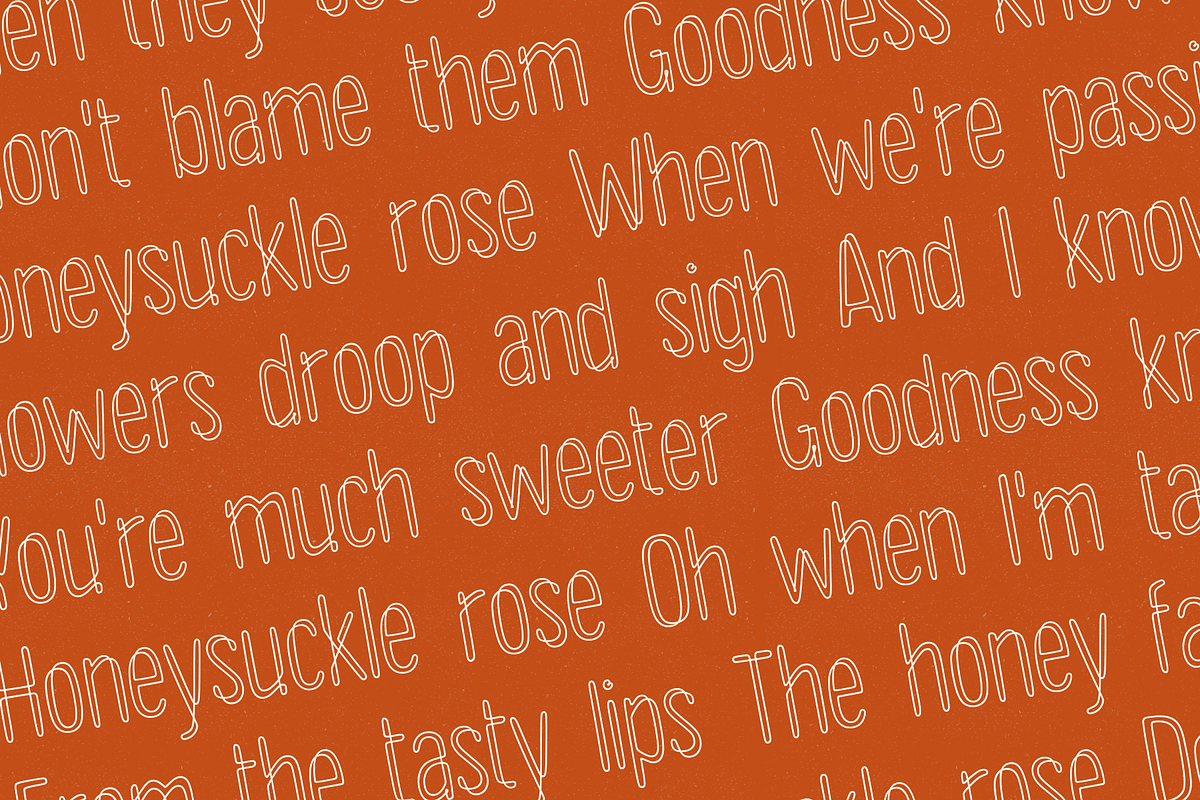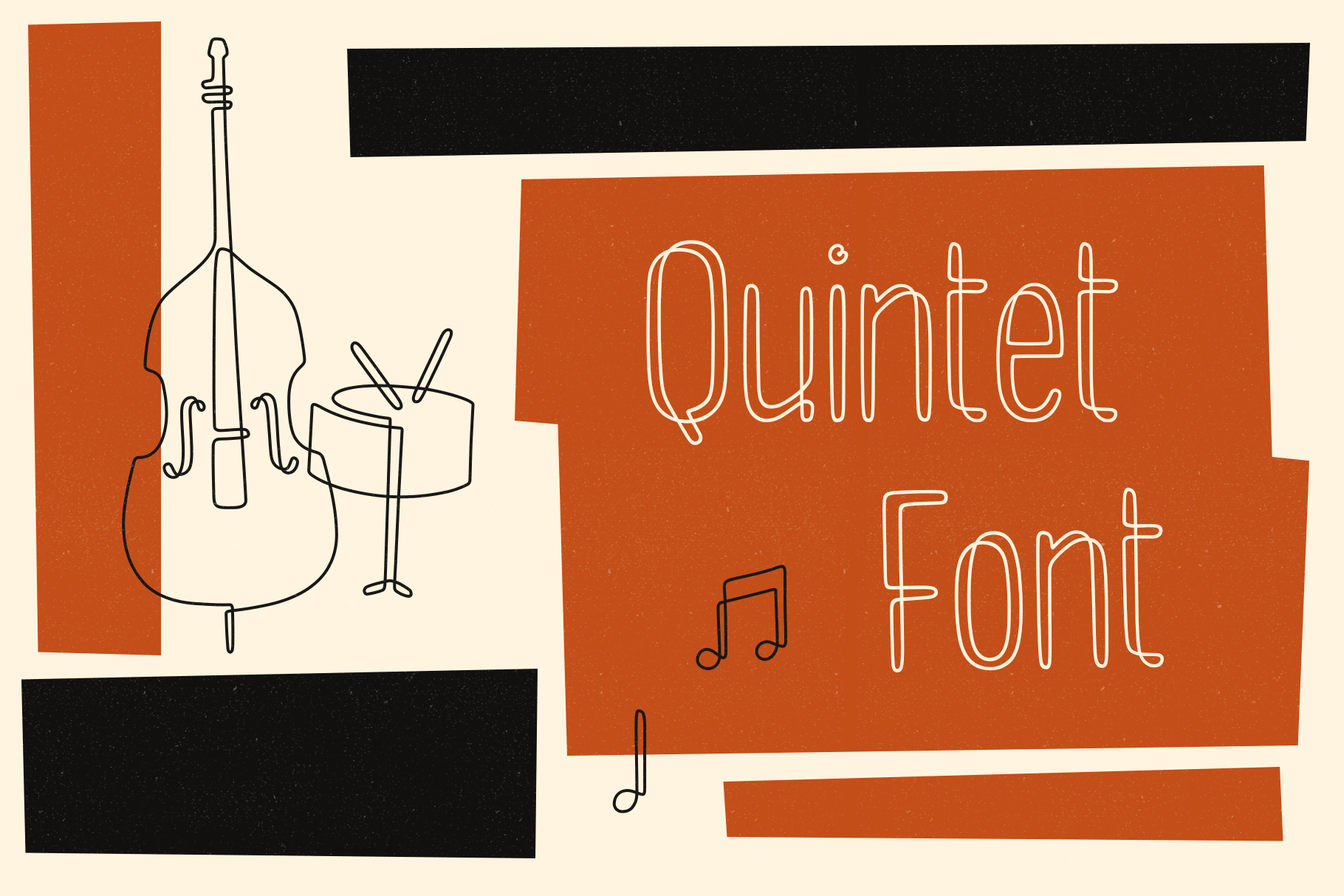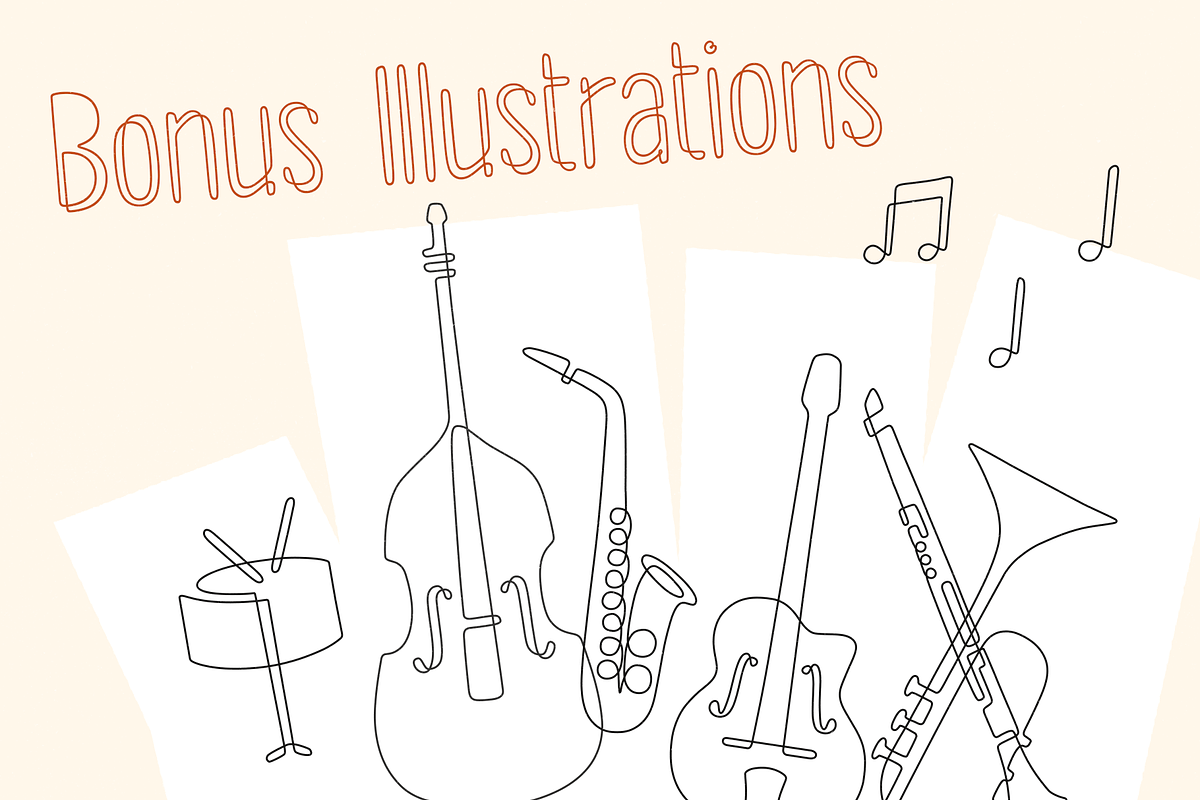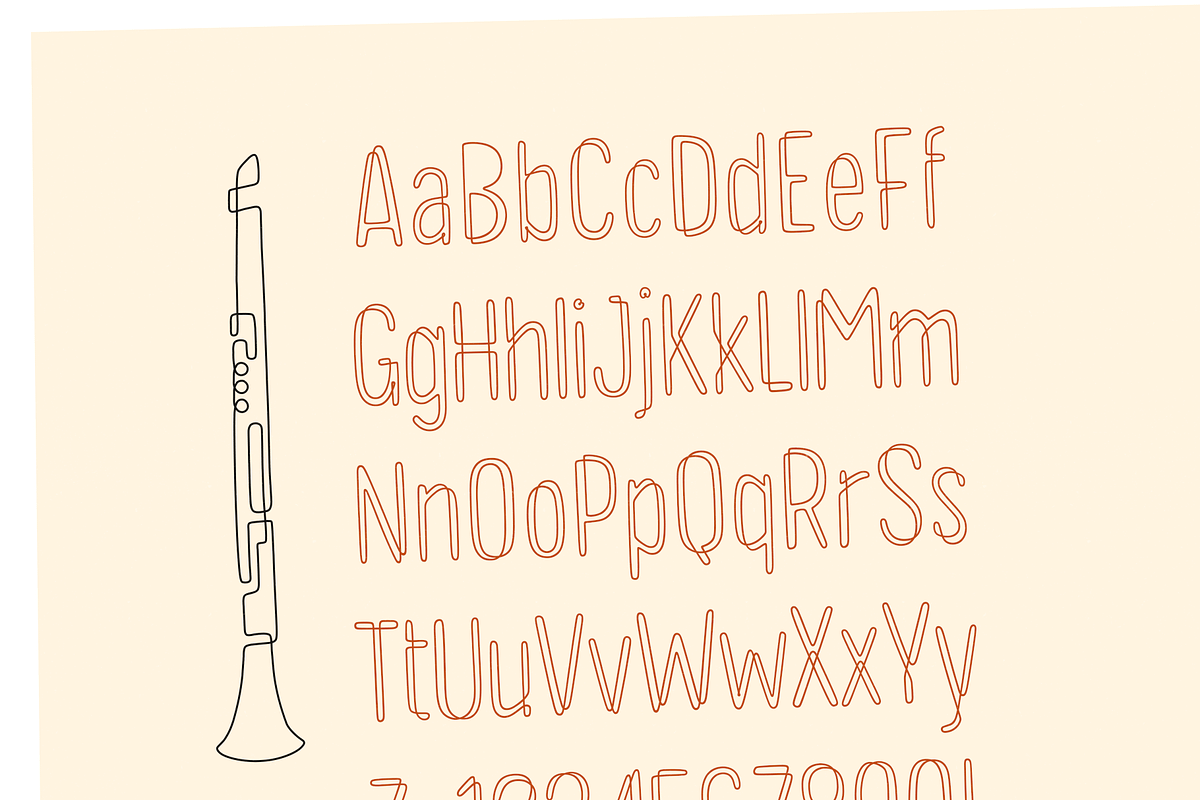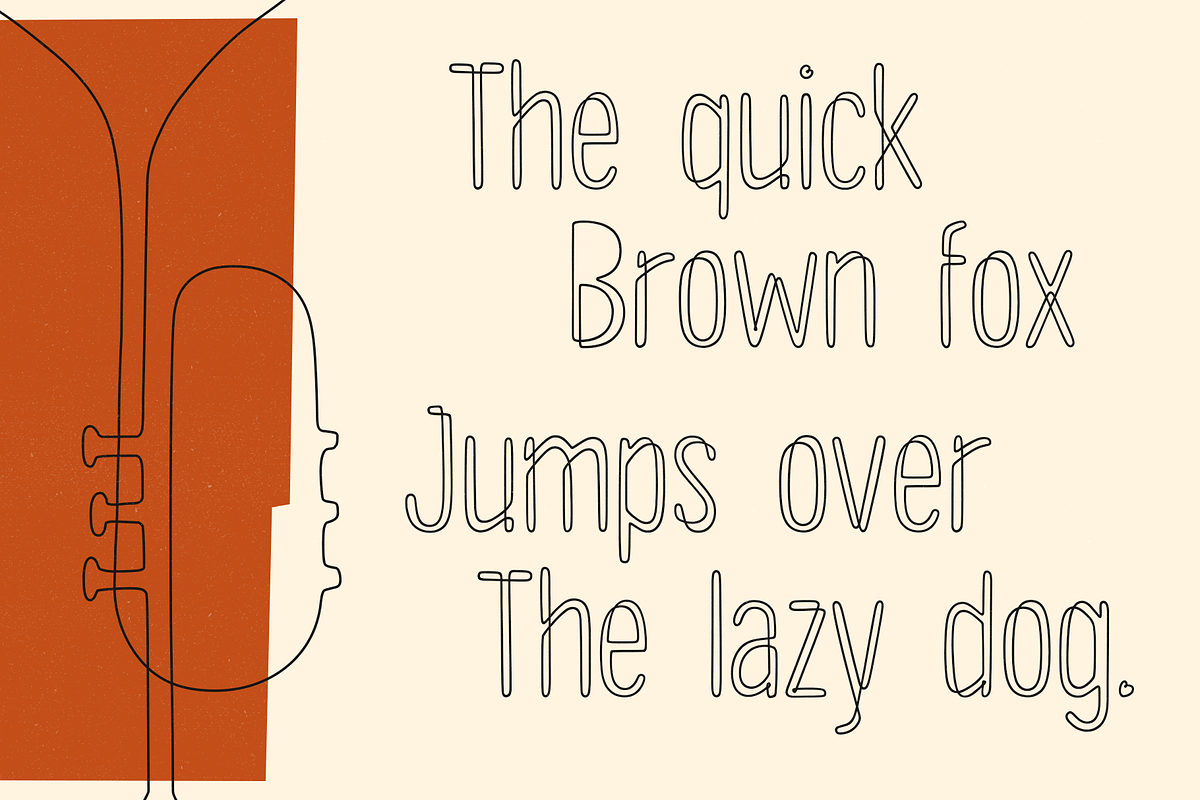
Quintet Font + Bonus Illustrations
Quintet is a narrow, stylized sans serif font made up of thin, looping lines. This font tries to walk the line between retro and modern and to incorporate some hand drawn imperfections without being too obvious about it.
I kicked off designing without any particular inspiration in mind but, as time went on, started associating it in my head with an old-timey, swingy jazz aesthetic. Think the Jeeves and Wooster throwback theme song and opening credits or the music of Stéphane Grappelli and Django Reinhardt (who the name is a nod to). That connection made pairing it up with abstract musical instruments seem like the natural choice and this package also includes those illustrations.